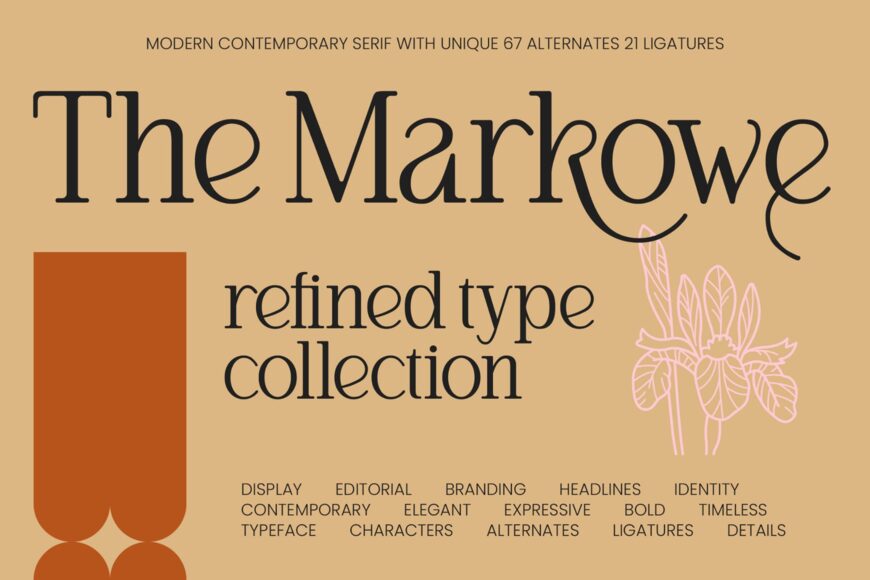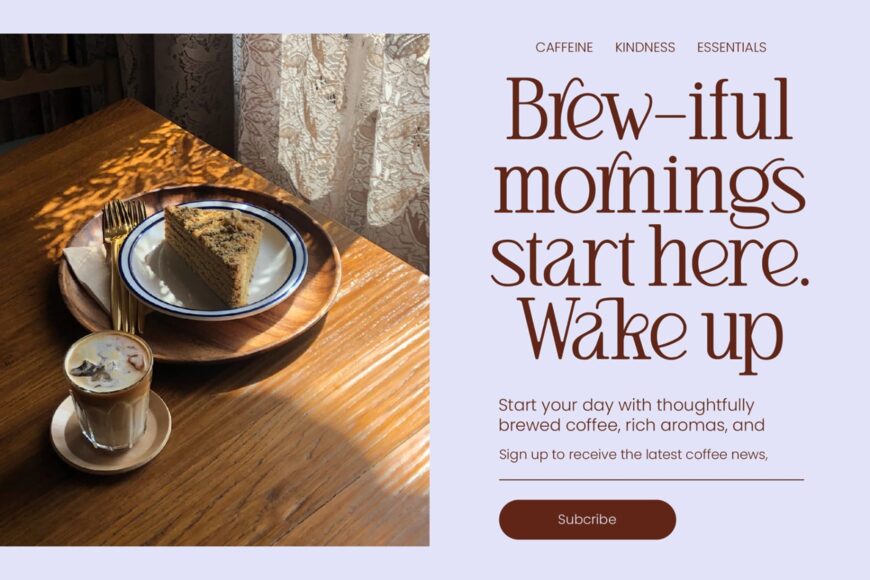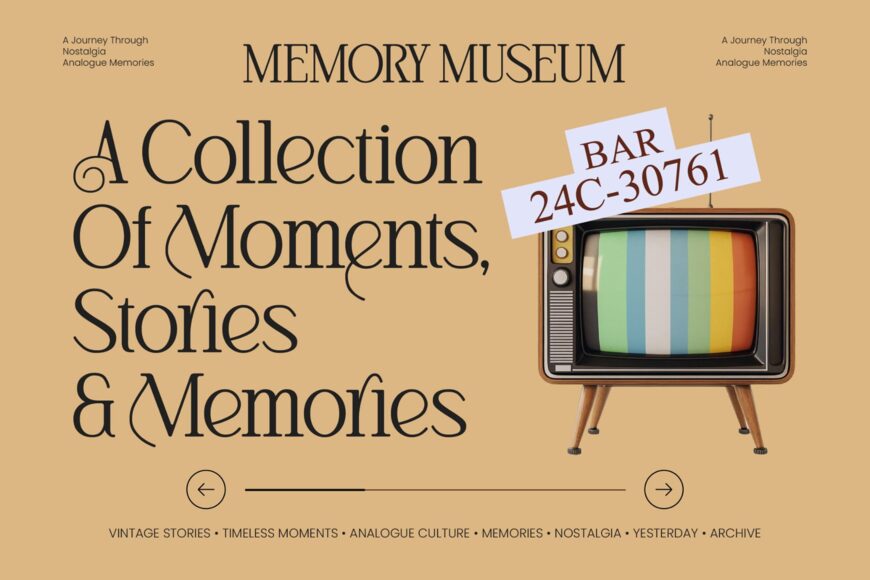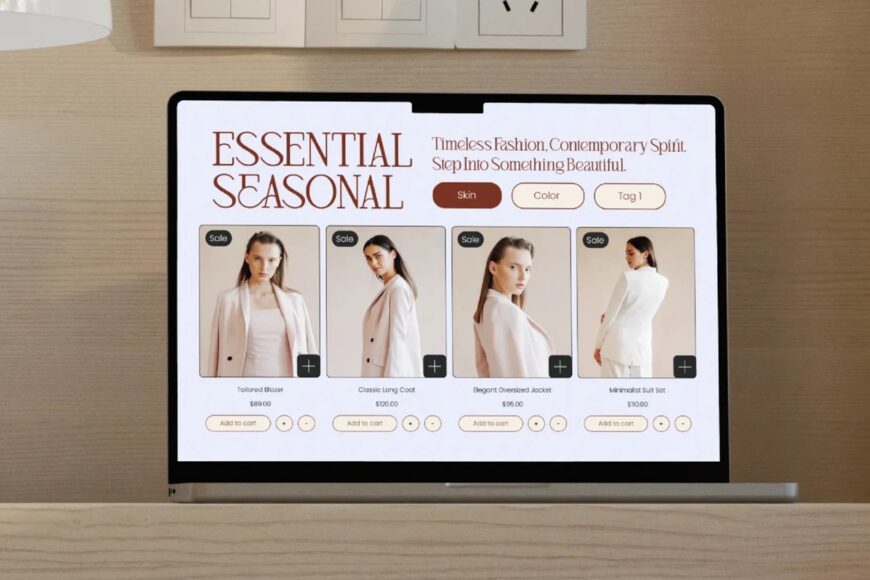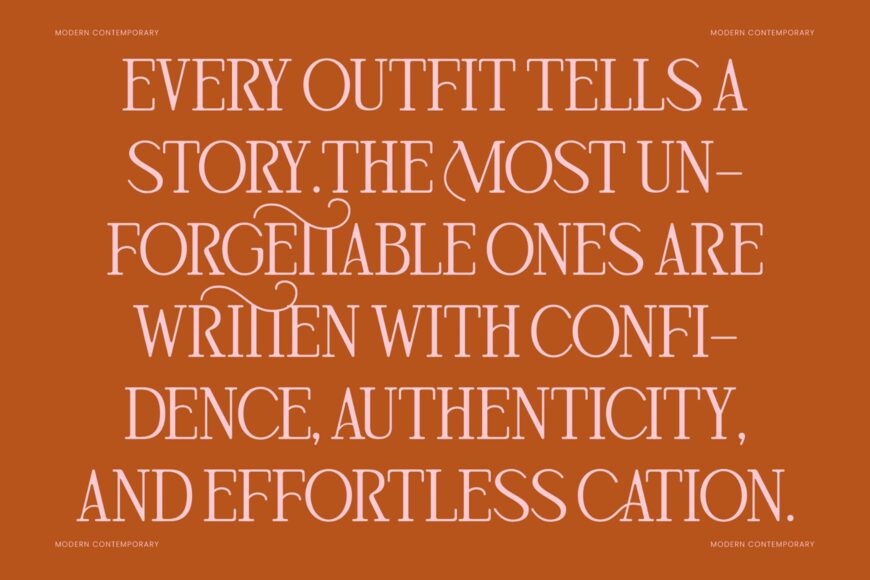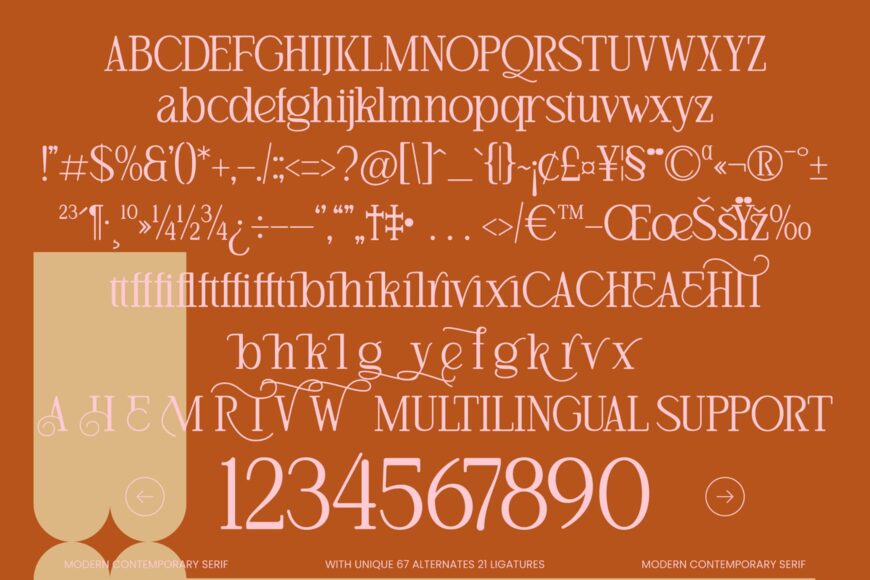
Elevate your brand with a refined typeface that blends classic elegance and modern style. The Markowe offers a perfect balance of sophistication and timelessness, ideal for high-end brands and editorial layouts.
With unique alternates and ligatures, it provides flexibility for custom typography and a bold, authoritative presence. Its global adaptability and multilingual support make it versatile for international projects, ensuring a cohesive and visually striking identity.